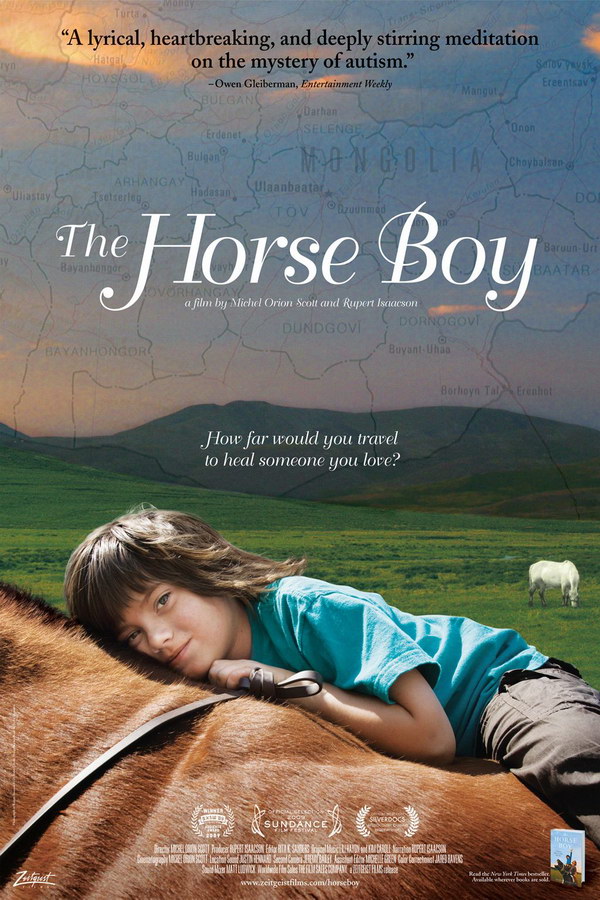
The Horse Boy Font
The movie title on the poster is written in Bellevue Pro font, a single-weight script font created by Gustav Jaeger in 1986. You can view more details about it here.